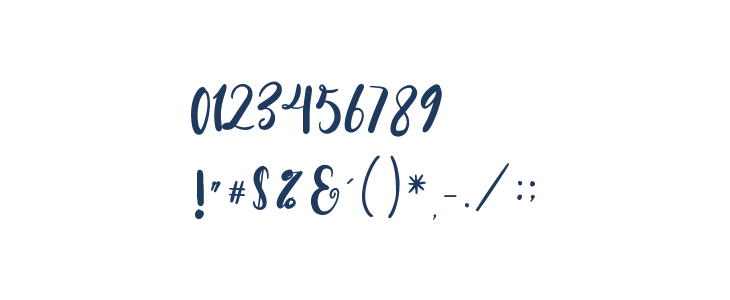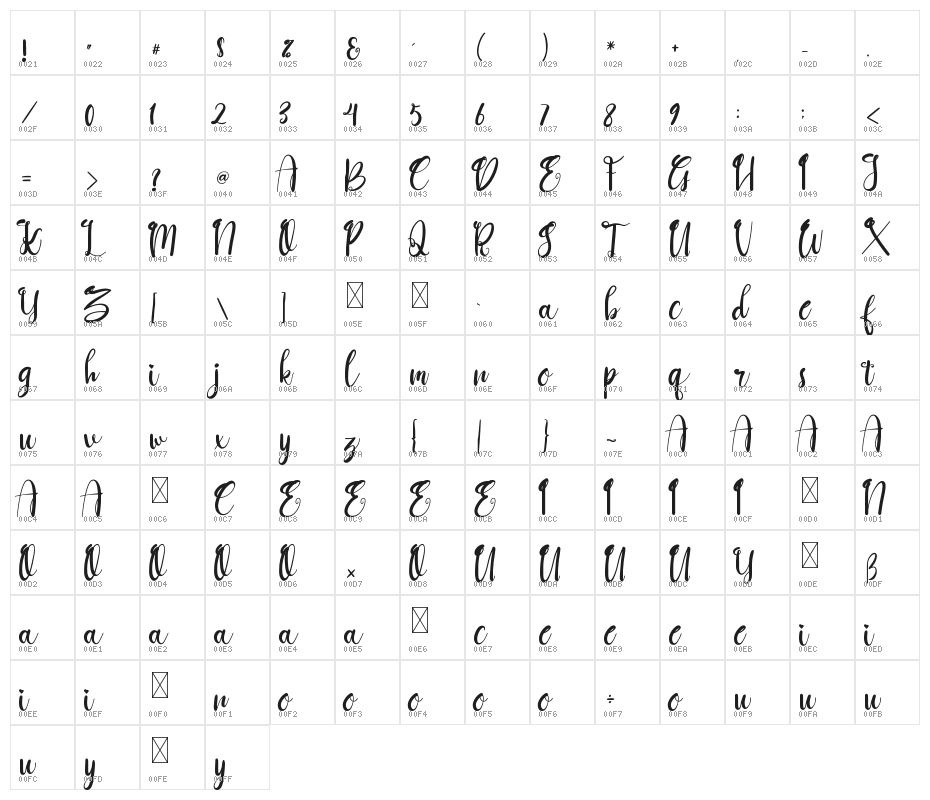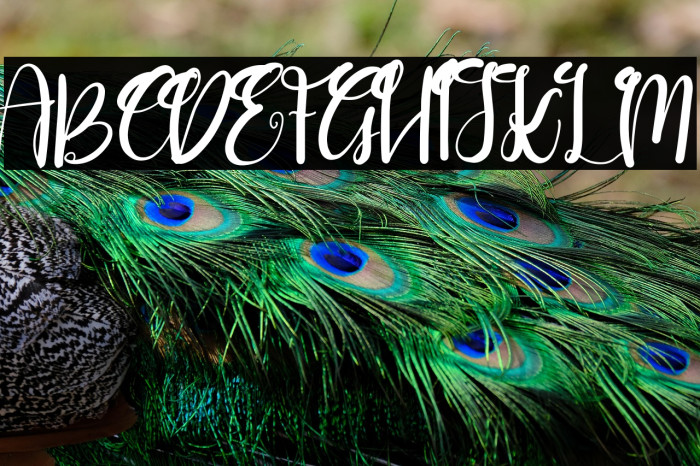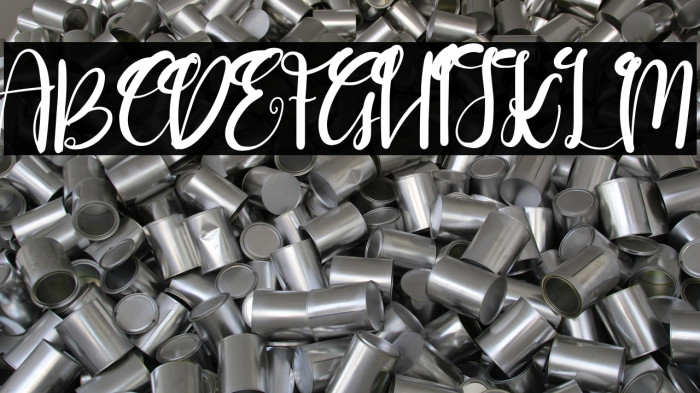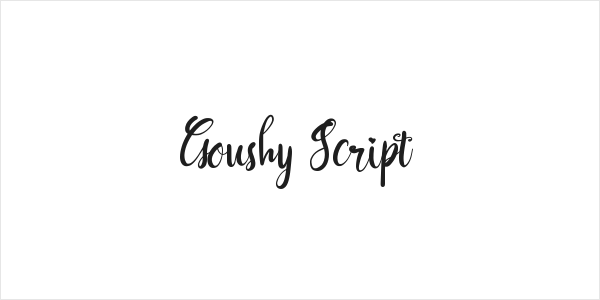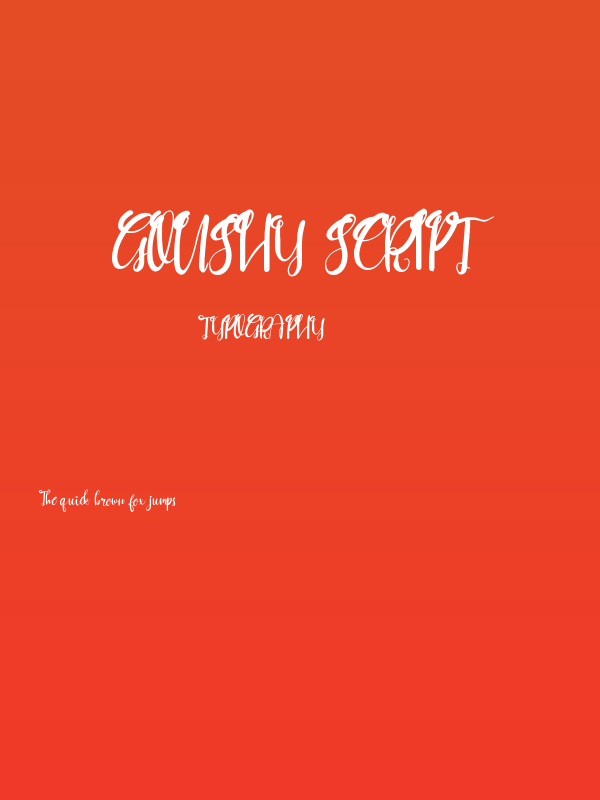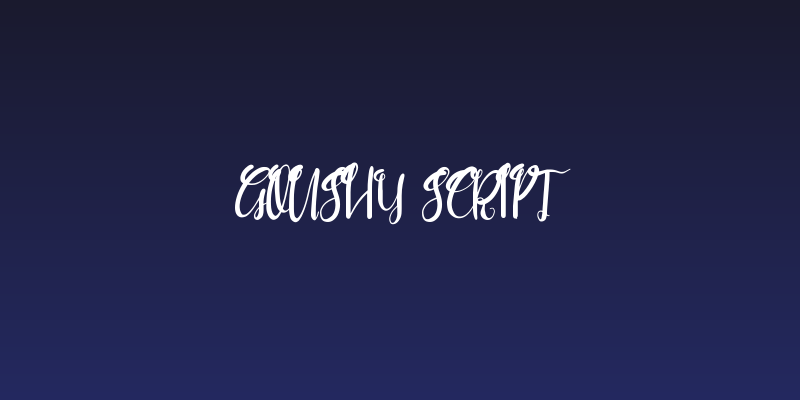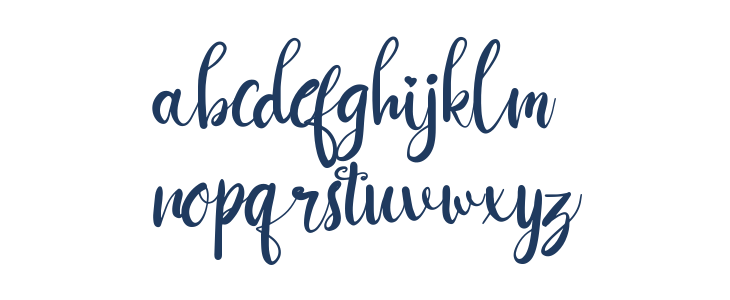
Goushy Script Font
Goushy Script Description
This font features a lively and expressive script style, characterized by its fluid, flowing strokes and elegant curves. The uppercase letters are bold and dynamic, with unique flourishes that add a touch of sophistication. The lowercase letters maintain a consistent rhythm, enhancing readability while retaining a playful charm. Numbers and special characters are crafted with the same attention to detail, ensuring a cohesive look across all elements. The overall design exudes a sense of creativity and elegance, making it suitable for various artistic applications.
Use CaseLogos, Invitations, Artistic Projects
Proposed ProjectsIdeal for wedding invitations, greeting cards, branding projects, and artistic posters.